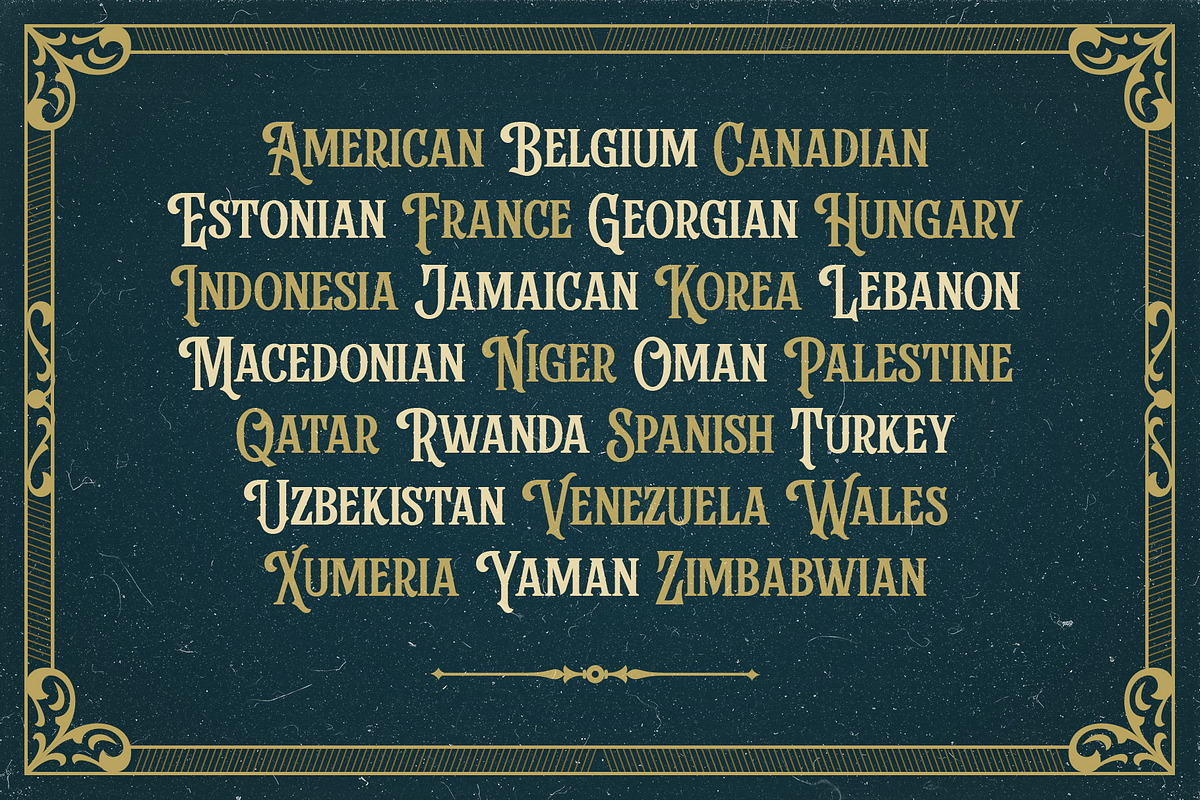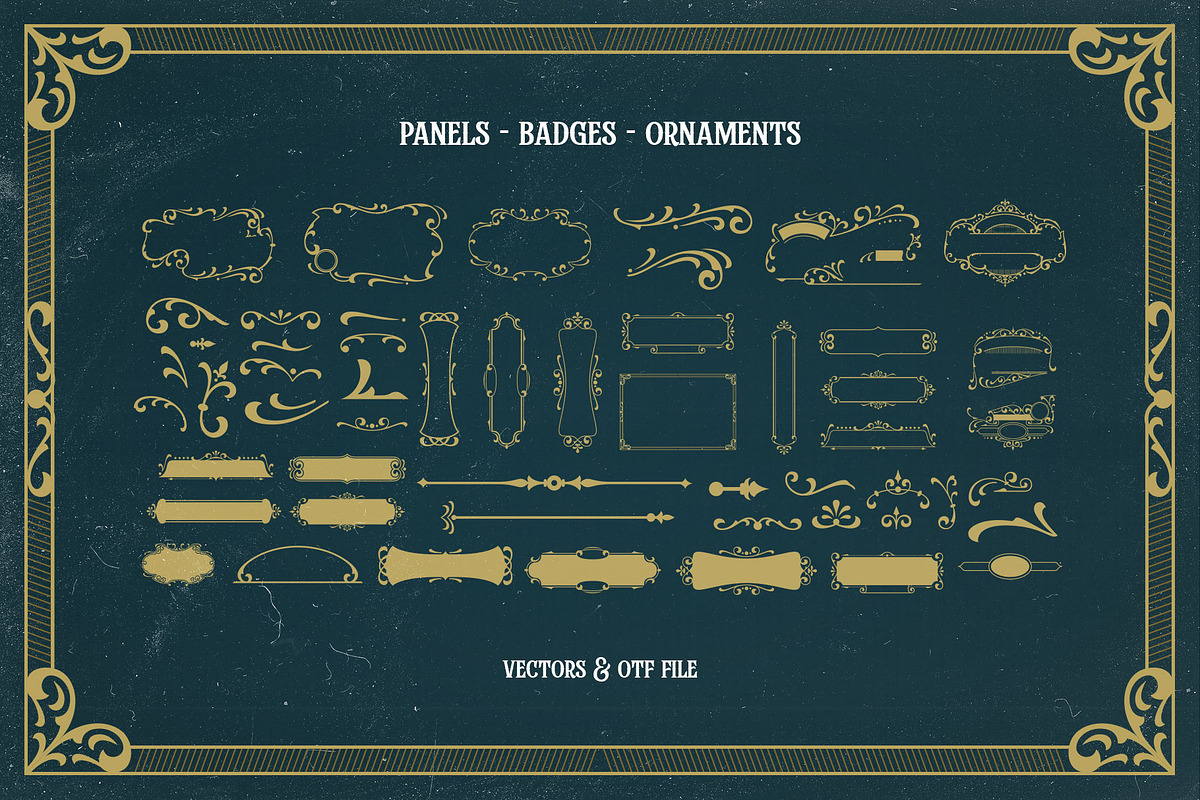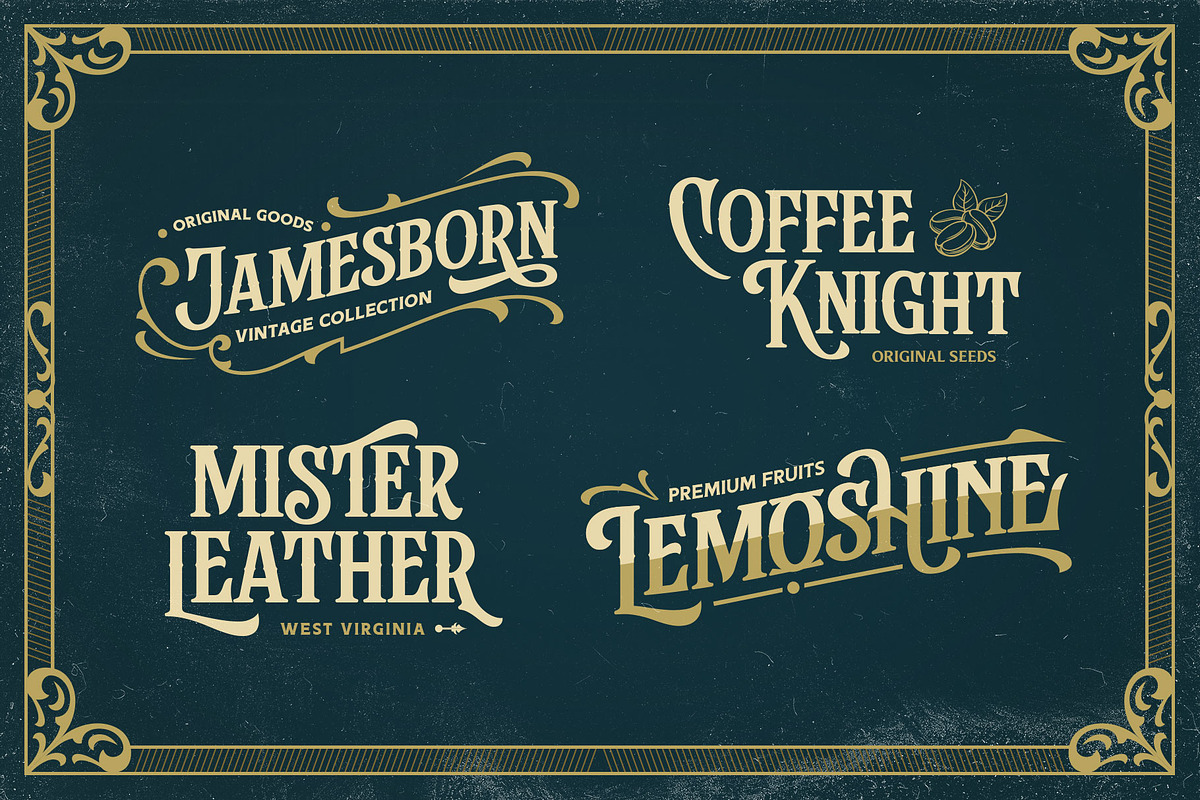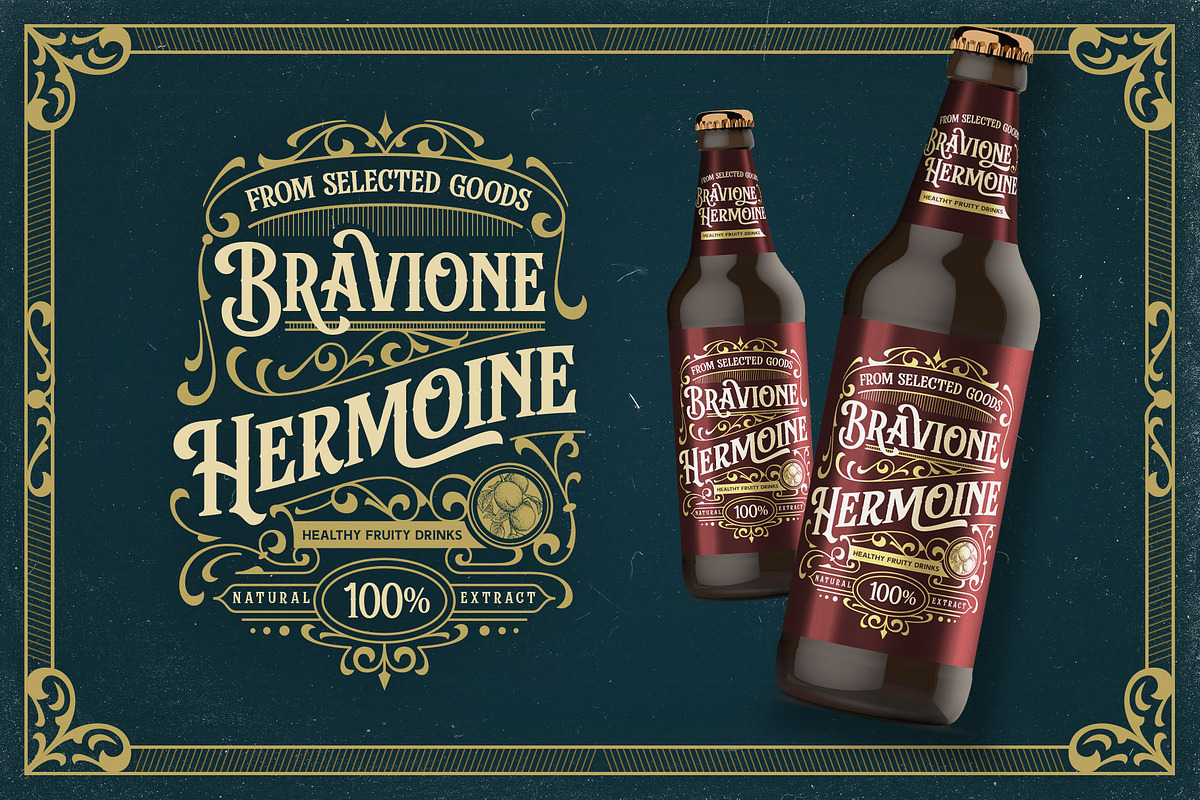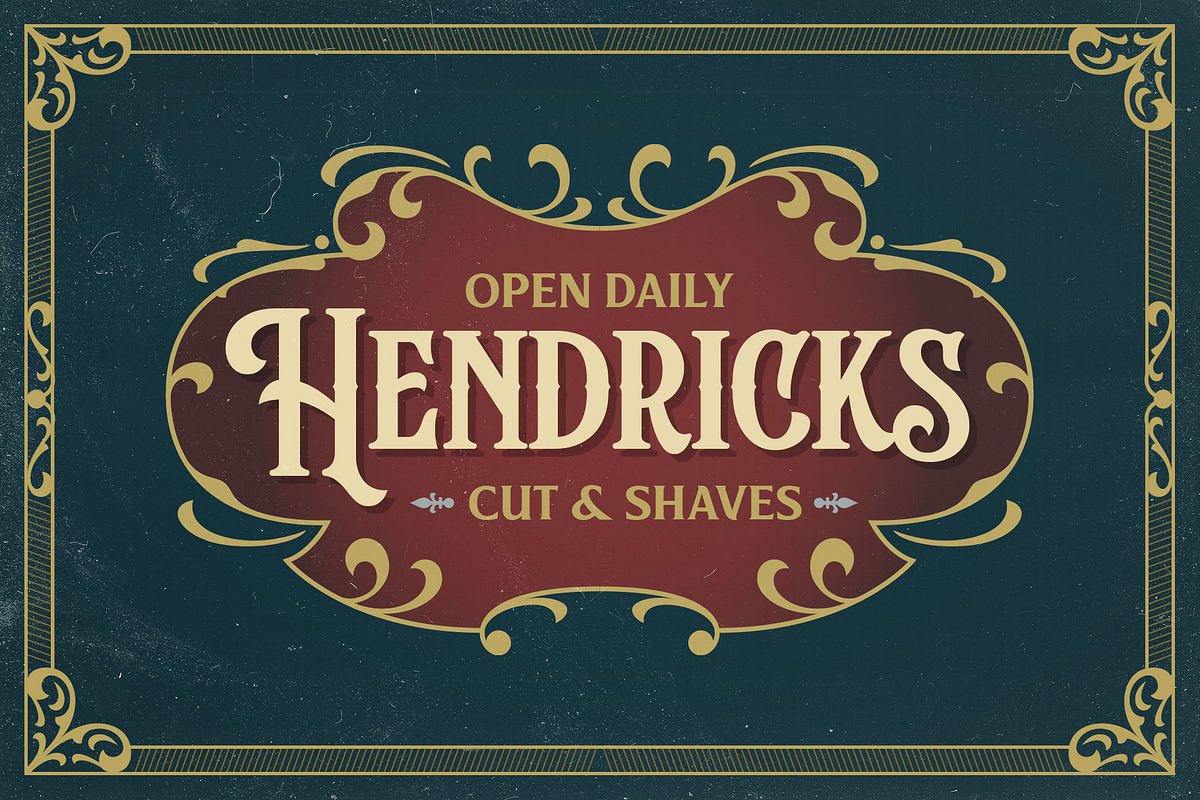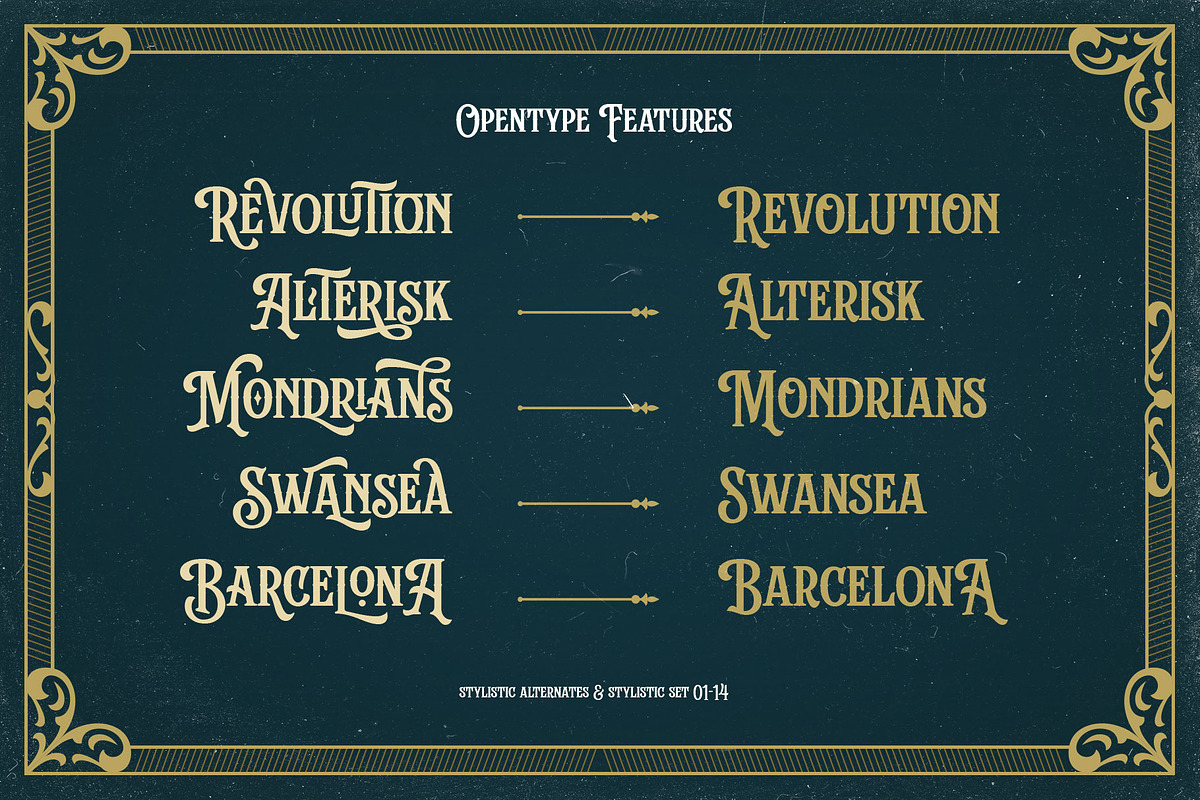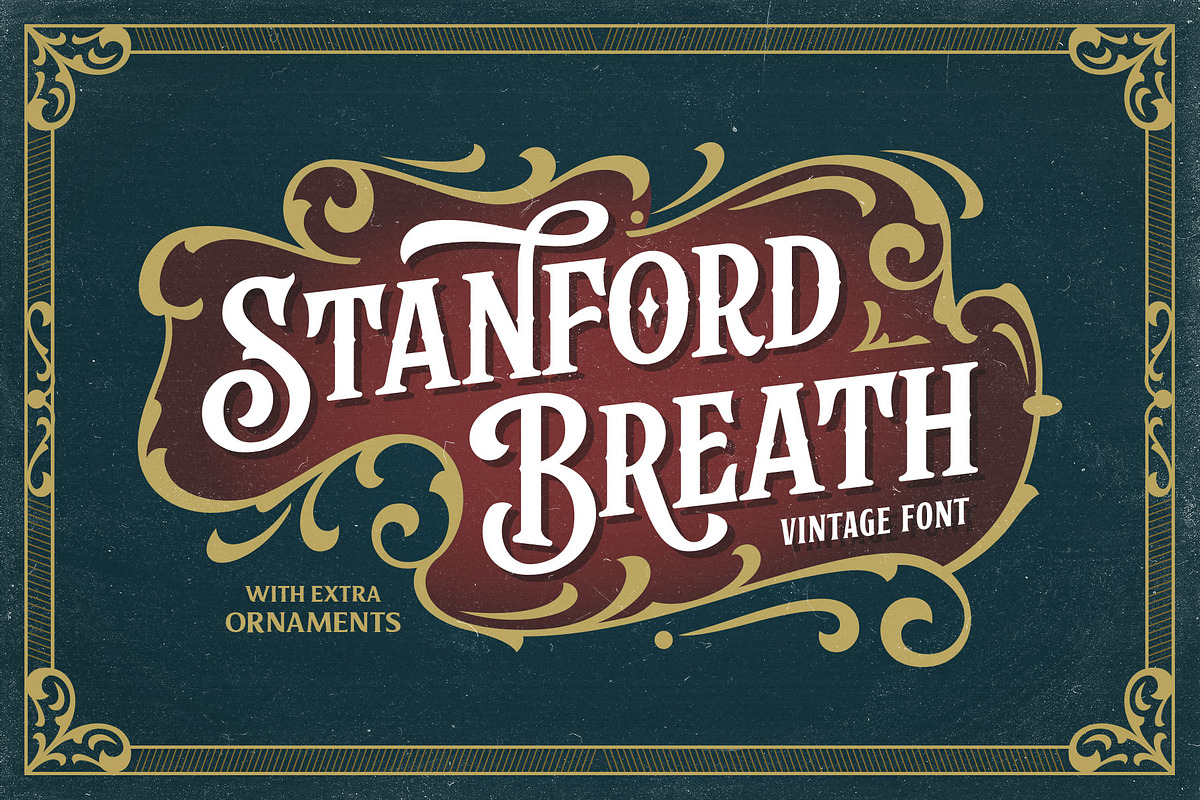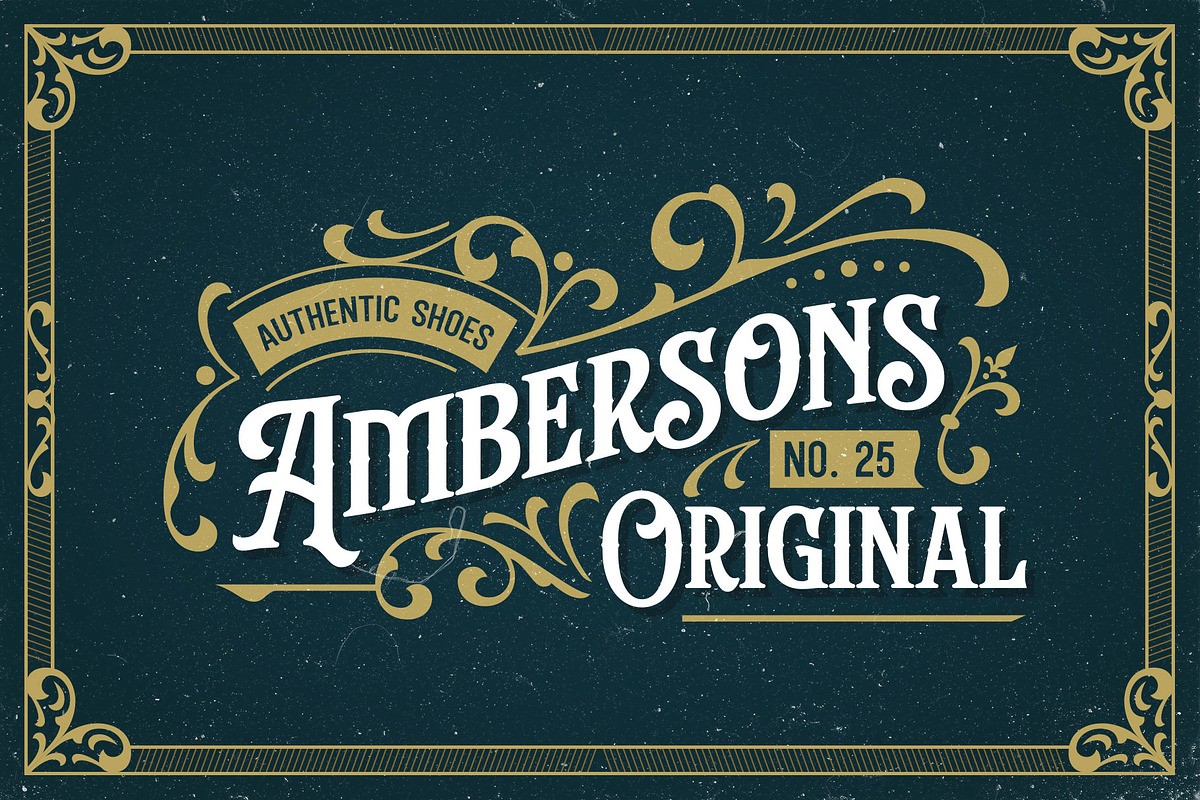
Stanford Breath - With Extras
Introducing 'Stanford Breath' a vintage decorative font inspired by the western typography and victorian style. this font has strong look with the rounded serif, all-caps, and decorative uppercase.
Collected from many references such as vintage signage, logo, badges, and old-fashioned graphics. Stanford Breath is complete with extra ornaments that look great to combine.
This font is perfect for many display purposes. You can use this font for posters, labels, logos, signboards, t-shirts, book covers, decorations, merchandise, and more! Multilingual support with a ton of alternate characters!
Fonts Featured :
Smallcaps
Numbers & punctuations
Stylistic Set 01-14
Custom ligatures
Accented characters: ÀÁÂÃÄÅÆÇÈÉÊËÌÍÎÏÑÒÓÔÕÖØÙÚÛÜÝÞŒŠŽßàáâãäåæçèéêëìíîïñòóôõöøùúûüýþÿœšž